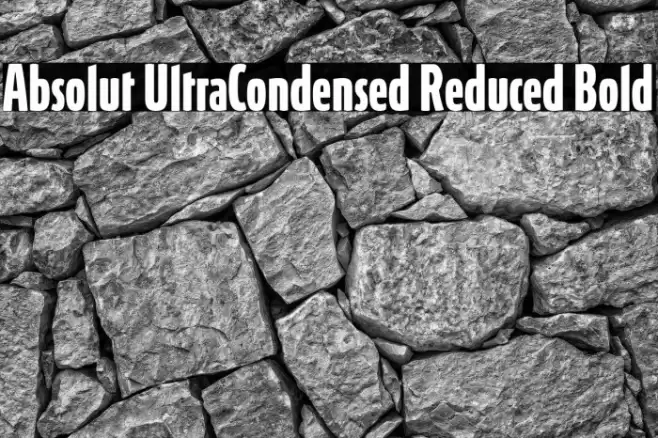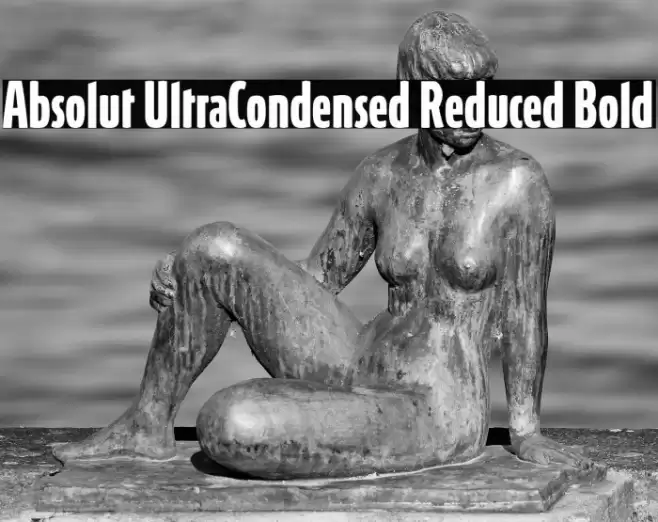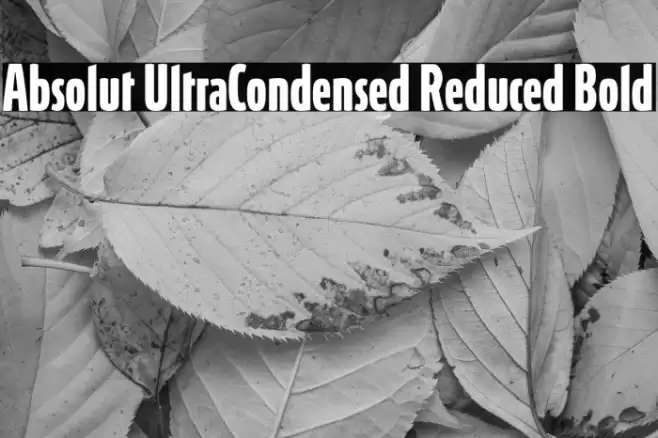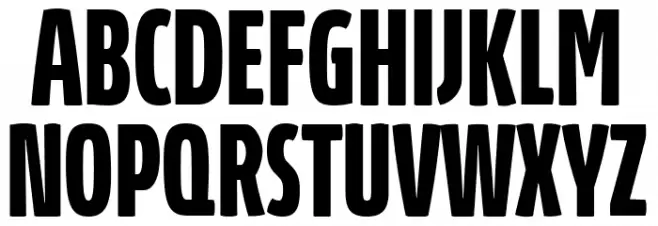
Absolut UltraCondensed Reduced Bold Font
Absolut UltraCondensed Reduced Bold Description
This font is characterized by its ultra-condensed and bold appearance, making it highly impactful and attention-grabbing. The letters are tightly packed, creating a strong visual presence. The bold weight enhances its readability and makes it suitable for headlines and titles. The design is modern and sleek, with smooth curves and clean lines that give it a contemporary feel. The uppercase and lowercase letters maintain a consistent style, ensuring uniformity across different text sizes. This font is ideal for projects that require a bold statement and a modern aesthetic.
Ultra-condensed, bold font with a modern and impactful style from Uncategorized fonts.
- Proposed Projects: Ideal for headlines, posters, advertising, and branding materials that require a strong visual impact.
- Character Spacing: Tight